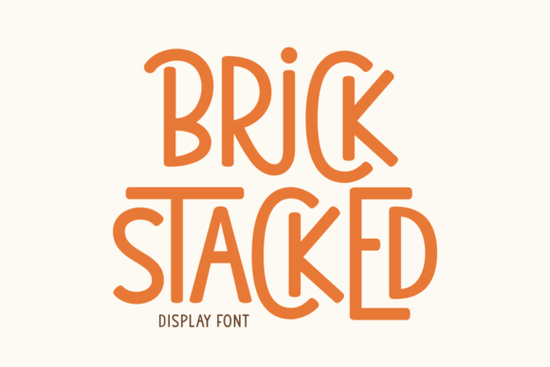
When you're looking for a font that can bring both boldness and cuteness to your designs, the Brick Stacked Font is a fantastic choice. This playful and versatile font is perfect for a wide range of creative projects, from holiday-themed designs to children's birthday party invitations.
Why Choose Brick Stacked Font?
The Brick Stacked Font stands out with its unique, outlined design, making it ideal for Cricut projects and other crafting endeavors. Its bouncy aesthetic is not only appealing to kids but also suitable for educational materials, adding a fun and engaging element to learning. Whether you're a designer, crafter, or print-on-demand seller, this font offers a charming and lively touch to your work.
Perfect for Holiday Themes and Celebrations
One of the standout features of the Brick Stacked Font is its ability to radiate festive cheer. It's perfect for creating holiday-themed designs, whether it's for Christmas, Easter, or any other special occasion. The font's bold and cute style makes it a great choice for greeting cards, banners, and decorations that need to stand out and spread joy.
Ideal for Children's Designs
For those working on projects aimed at children, the Brick Stacked Font is a wonderful option. Its playful and bouncy design is sure to capture the attention and imagination of young ones. Use it for birthday party invitations, classroom posters, or even in children's books. The font's school-appropriate and kid-friendly look makes it a go-to choice for educators and parents alike.
Versatile for Various Creative Projects
The versatility of the Brick Stacked Font extends beyond just holiday and children's themes. It's also excellent for creating playful logo designs, comic covers, and even summer stickers. The font's simple yet impactful design makes it easy to incorporate into a variety of projects, from t-shirt designs to book covers and posters.
Great for Farmhouse-Style Décor
If you're into farmhouse-style décor, the Brick Stacked Font adds a charming and rustic touch to your designs. Use it for creating quotes, signs, or decorative elements that complement a cozy, homey feel. The font's cool and casual vibe makes it a natural fit for modern planners and other home decor projects.
Complementary Fonts for a Cohesive Look
Using Brick Stacked Font in Procreate and Other Design Tools
The Brick Stacked Font works seamlessly with popular design tools like Procreate, making it easy to integrate into your digital art projects. Whether you're designing stickers, creating digital illustrations, or working on a new planner layout, this font adds a lively and engaging touch. Its simplicity and clean lines make it a versatile choice for both digital and print designs.
Creating Engaging and Lively Projects
With its happy and bouncy design, the Brick Stacked Font imitates the joyful outbursts of a cartoon, ensuring your projects are always engaging and lively. Whether you're crafting a children's book, designing a playful logo, or creating a memorable poster, this font brings a sense of fun and energy to your work. Its bold blocks and outlined design make it stand out, while its readability ensures your message is clear and coherent.
Practical Tips for Using Brick Stacked Font
- Experiment with Colors: Try different color combinations to see what works best for your project. Bright and bold colors can enhance the playful and festive feel of the font.
- Combine with Graphics: Pair the Brick Stacked Font with fun graphics and illustrations to create a cohesive and visually appealing design.
- Test Readability: While the font is designed to be readable, it's always a good idea to test it in different contexts to ensure it's clear and legible, especially for longer texts.
- Use in Different Contexts: Don't be afraid to use the Brick Stacked Font in a variety of projects. Its versatility makes it suitable for everything from holiday cards to children's books and beyond.
By incorporating the Brick Stacked Font into your creative projects, you can add a touch of playfulness and charm that captures the attention and imagination of your audience. Whether you're designing for a special occasion, a children's event, or a casual, everyday project, this font is a valuable addition to your design toolkit.
Next time you're looking for a font that combines visual appeal with readability, give the Brick Stacked Font a try. Happy designing!